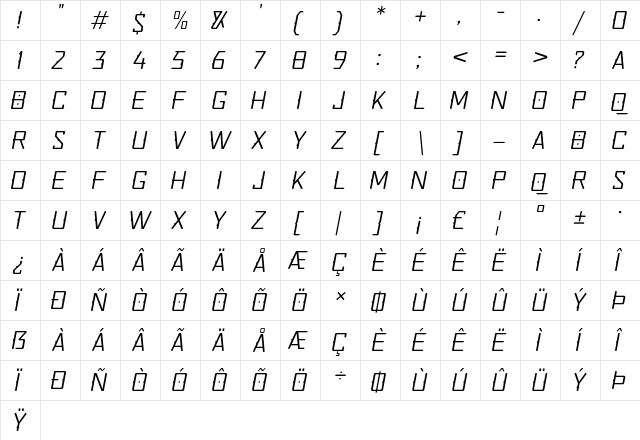
Quirko Light Oblique
| Foundry | Shrenik Ganatra |
| Designer | Shrenik Ganatra |
Design Context for Quirko Typeface
Quirko is a composed and adaptable typeface that performs quietly and consistently across a wide range of design contexts. The slanted form adds forward momentum and visual energy. Its slender proportions lend an understated elegance to any composition.
Pro Tip: Try Quirko for annotation and caption copy alongside an upright companion — the contrast in angle creates a dynamic but ordered typographic system.